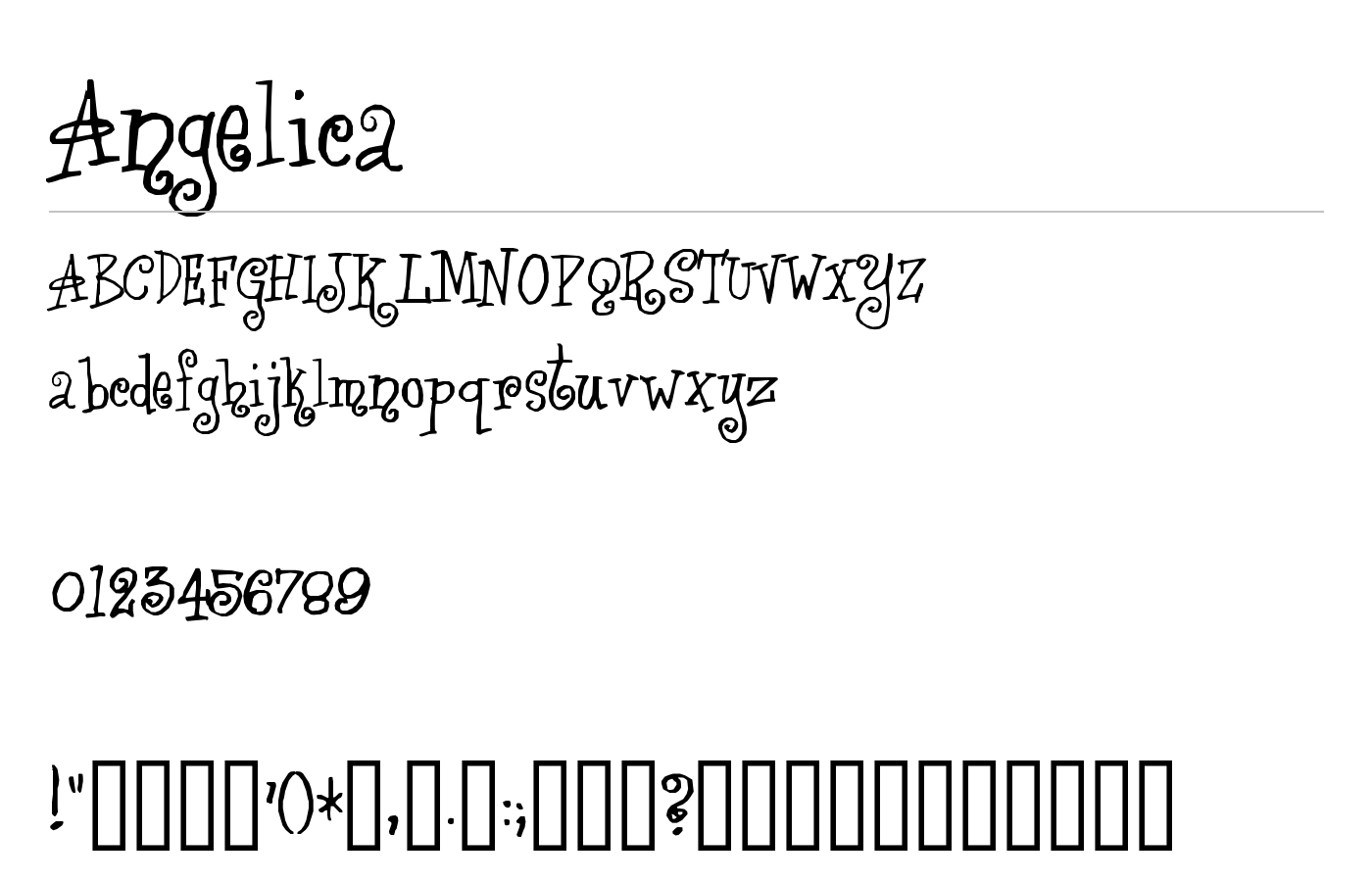
Angelica is a whimsical serif font featuring playful curls and quirky strokes that give it a hand-drawn, artistic feel. Its irregular, decorative letterforms add a touch of charm and creativity, making it ideal for fun, informal designs such as invitations, children's books, or artistic branding. This font works best when used in headlines or display text where its unique personality can truly stand out.
Angelica Font